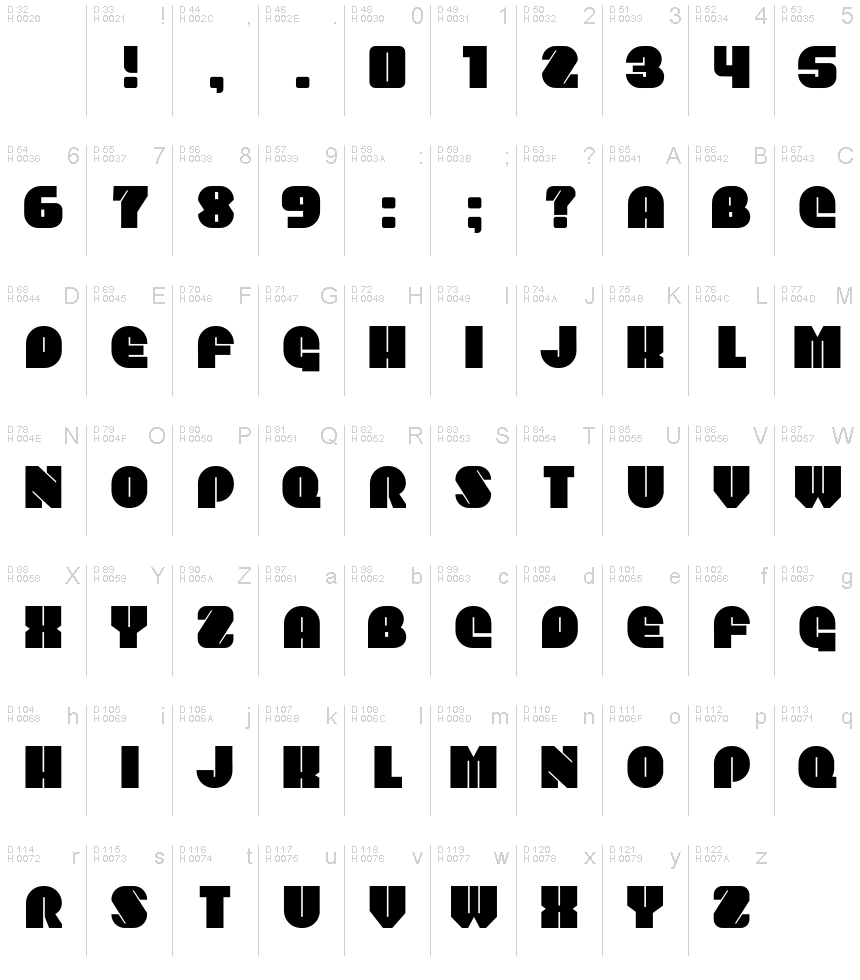
Polesitter
Polesitter, a captivating display font crafted by Mocha Frappuccino, exudes a bold, groovy aesthetic. With its striking letterforms and dynamic curves, this font emanates a sense of energy and movement, commanding attention in any design. The bold weight adds a powerful presence, while the unique styling lends an air of retro-inspired charm. Polesitter's distinct personality invites designers to explore its versatility, seamlessly blending vintage flair with modern sensibilities.
This font's versatility shines through, making it a valuable asset in a wide range of design projects. Its bold, attention-grabbing presence makes it an excellent choice for headlines, logos, and branding applications, where it can truly shine. Polesitter's character also lends itself well to editorial design, adding visual interest and emphasis to important text. Whether crafting eye-catching posters, designing impactful packaging, or elevating the aesthetic of digital interfaces, Polesitter's captivating style is sure to leave a lasting impression.